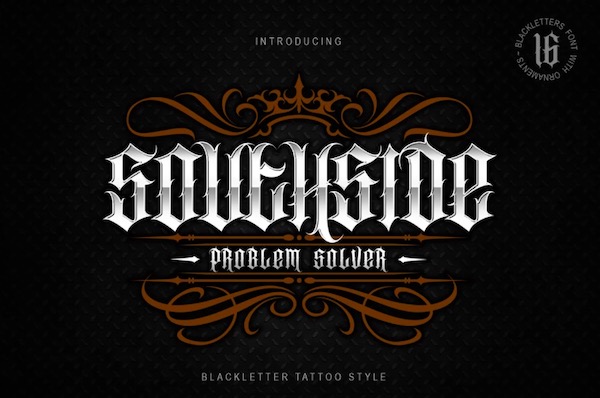
SOUTHSIDE is a fancy contemporary blackletter font that has a great unique background. This special font consists of uppercase letters along with numerals, and a vast of punctuation. And this south side lettering will be perfect for many types of modern working.
SOUTHSIDE Blackletter Font